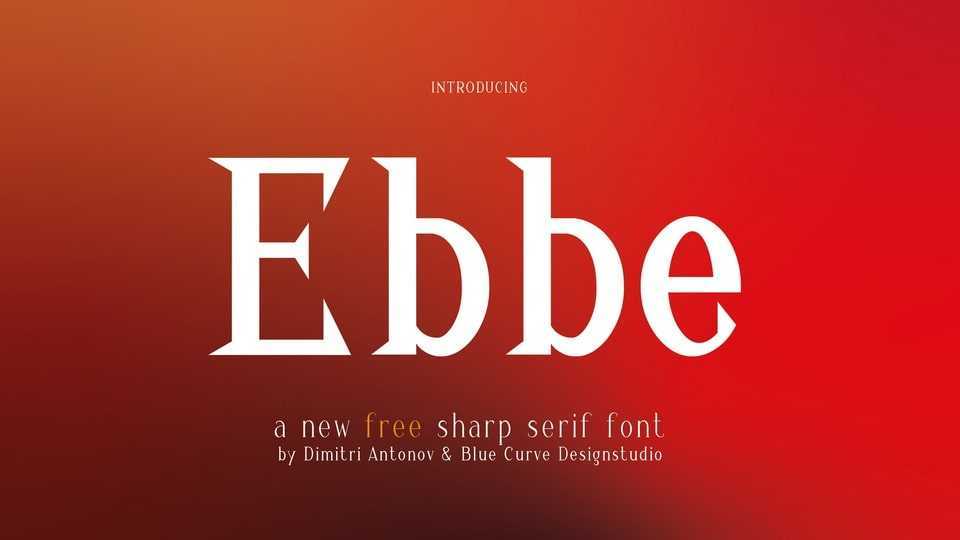
Download Ebbe font, a sharp-edged Antiqua typeface, rough and stylish like Tom Shelby. It features finely chiseled serifs and angular letterforms that evoke a sense of history and sophistication.
Designer: Dimitri Antonov